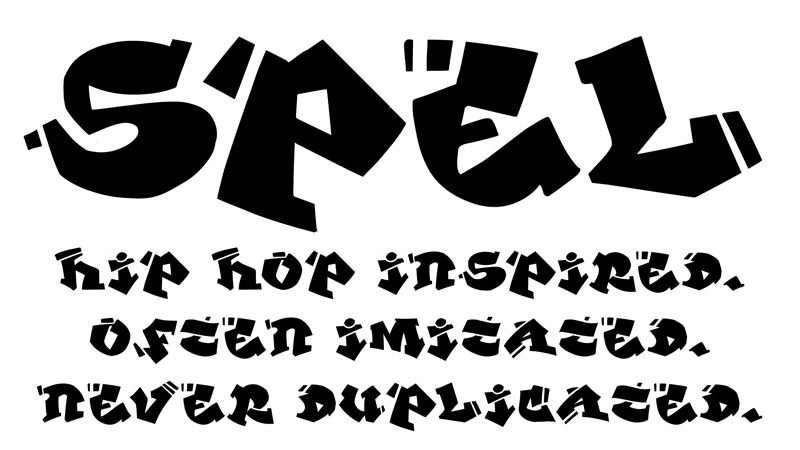
Spel font by Field 2 Design is a graffiti-inspired free font with an urban aesthetic. The expressive strokes are dynamic and evoke an energetic vibe characterized by a rebellious tone and artistic flair. A perfect choice for those pursuing an edgy and contemporary style, this typeface is informed by street culture interests and influences.
Use Spel font on book covers or bring attention to merchandise packaging. It wonderfully suits event posters, apparel design, music album covers, and magazine headlines. Try it out on social media posts, logotypes, and website design. Advertisement banners for outdoor use can also benefit from it.